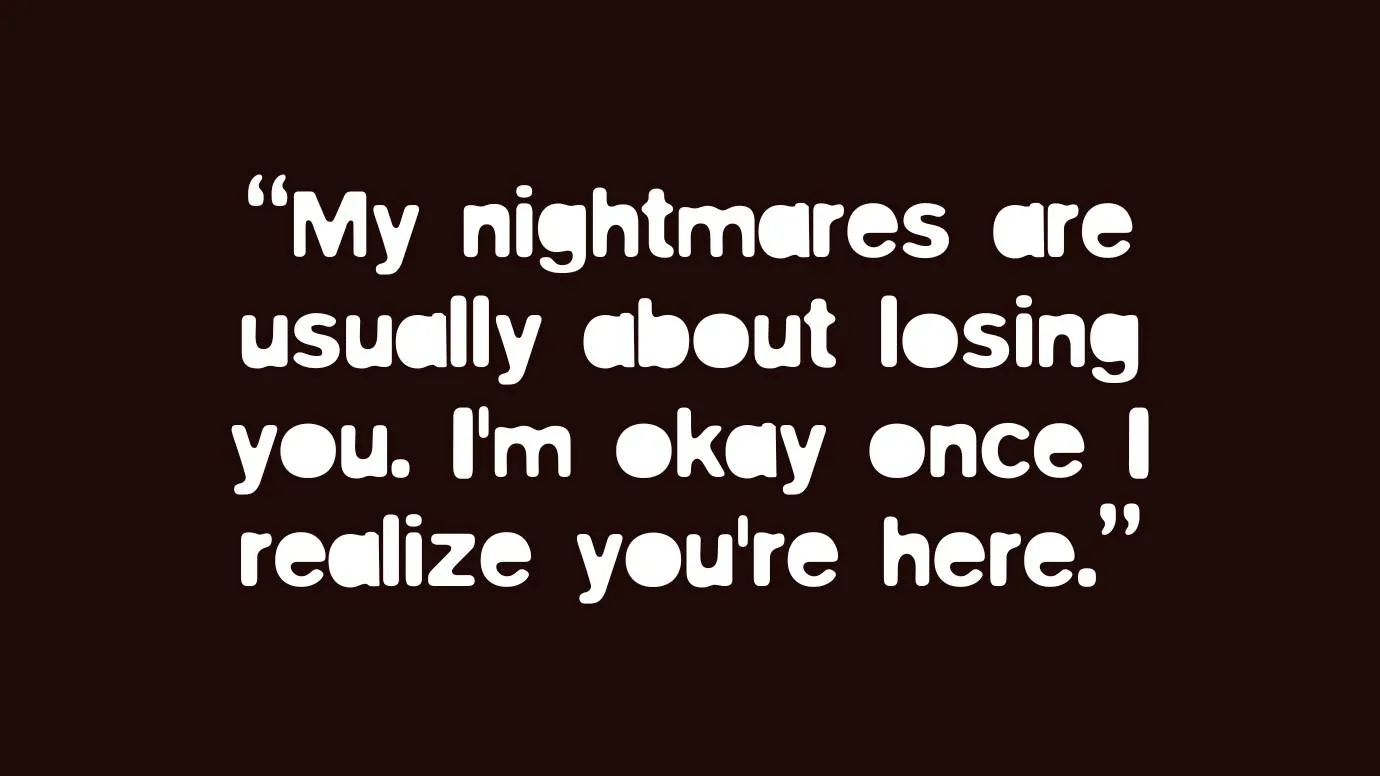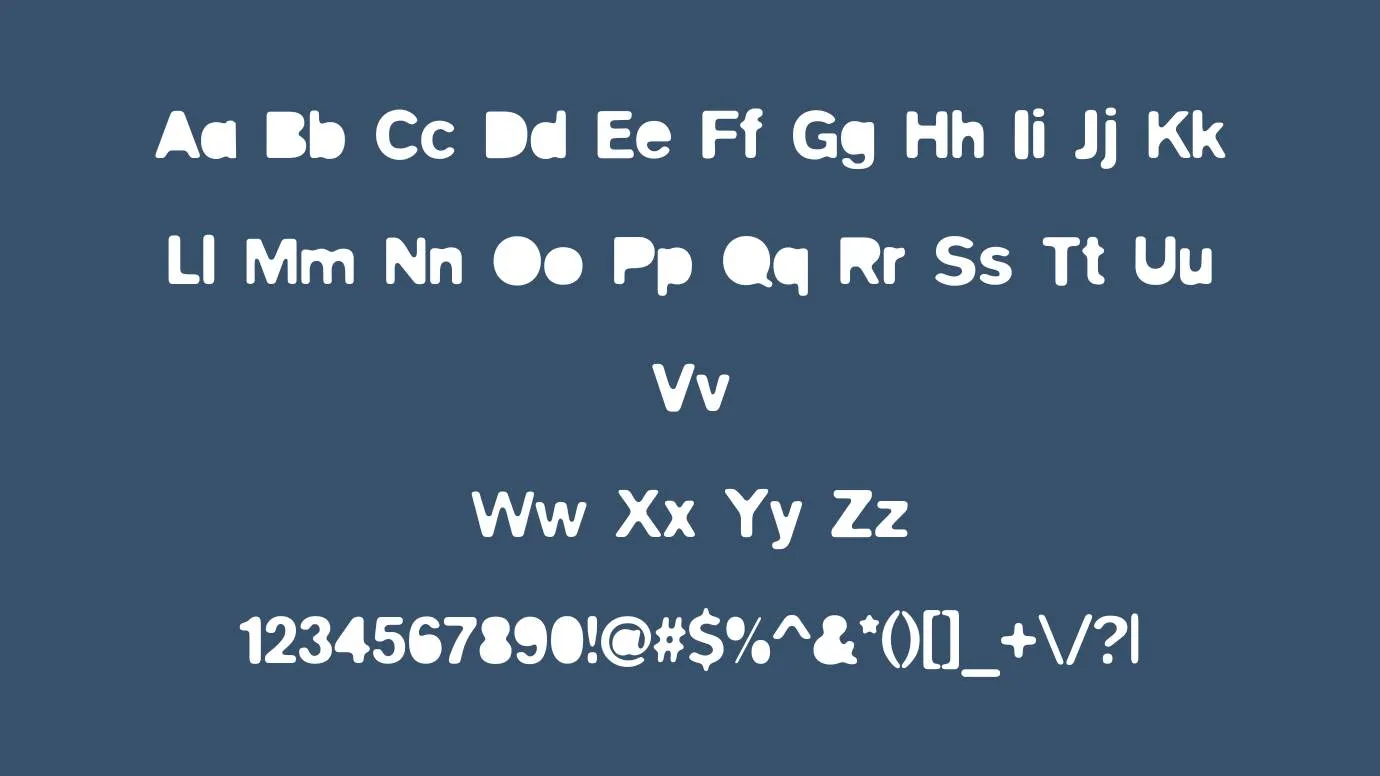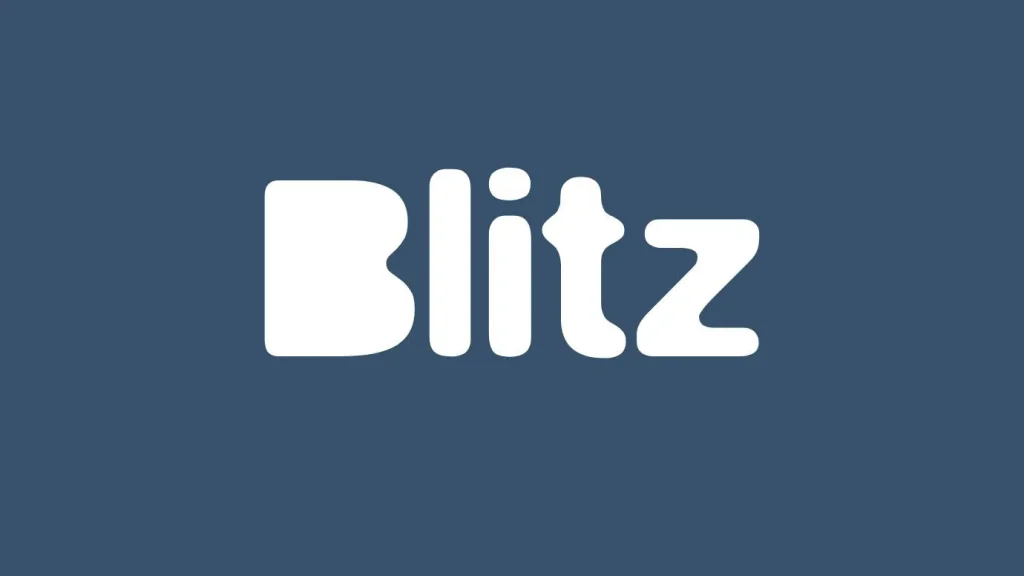
You can use this attractive typeface for crafting unique business cards and website titles. Stylish designs are best created with this font with gorgeous
You can use this attractive typeface for crafting unique business cards and website titles. Stylish designs are best created with this font with gorgeous features. This typeface is popular worldwide because of its beautiful shape.
The font is right for creating invitations, flyers, and posters. This font is a tremendous preference in case you're searching for a unique and festive font.
This typeface is normally used for making captions, brief idioms, and labels. So, whether you’re designing a party celebration invite or a t-shirt, this font is a tremendous choice. The typeface has come to be an iconic style it has a beautiful design. It's often used for branding publicity and marketing purposes.
You can also utilize this typeface for developing invitations, blog designs, advertising outlines, branding, artwork, card designs, unique events, birthday card designs, pillow designs, mug designs, and so on.
This gorgeous typeface has a place in the category of a fancy font.
It could be an instrument that makes a difference for its client to change over their simple and easy content into a unique style.